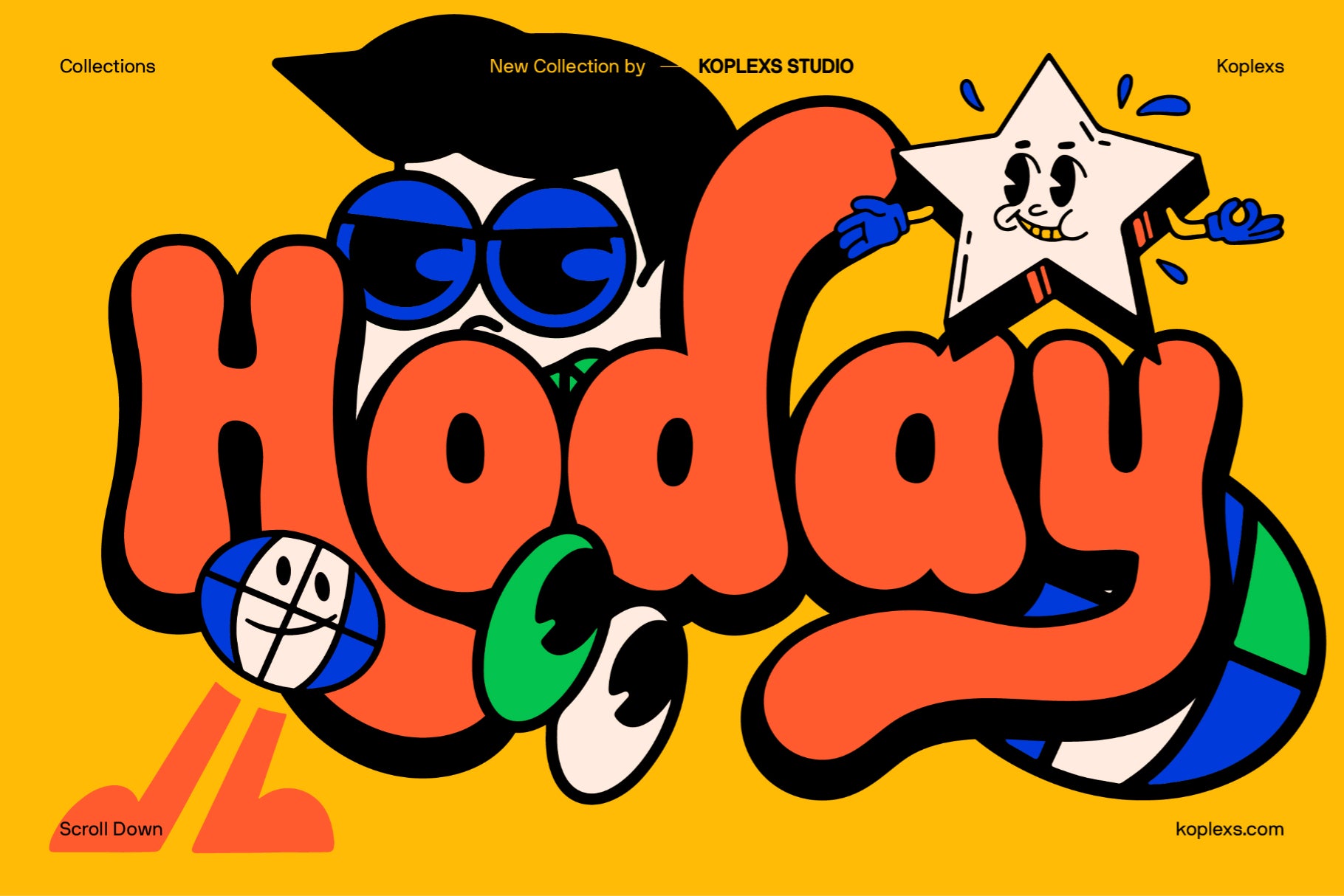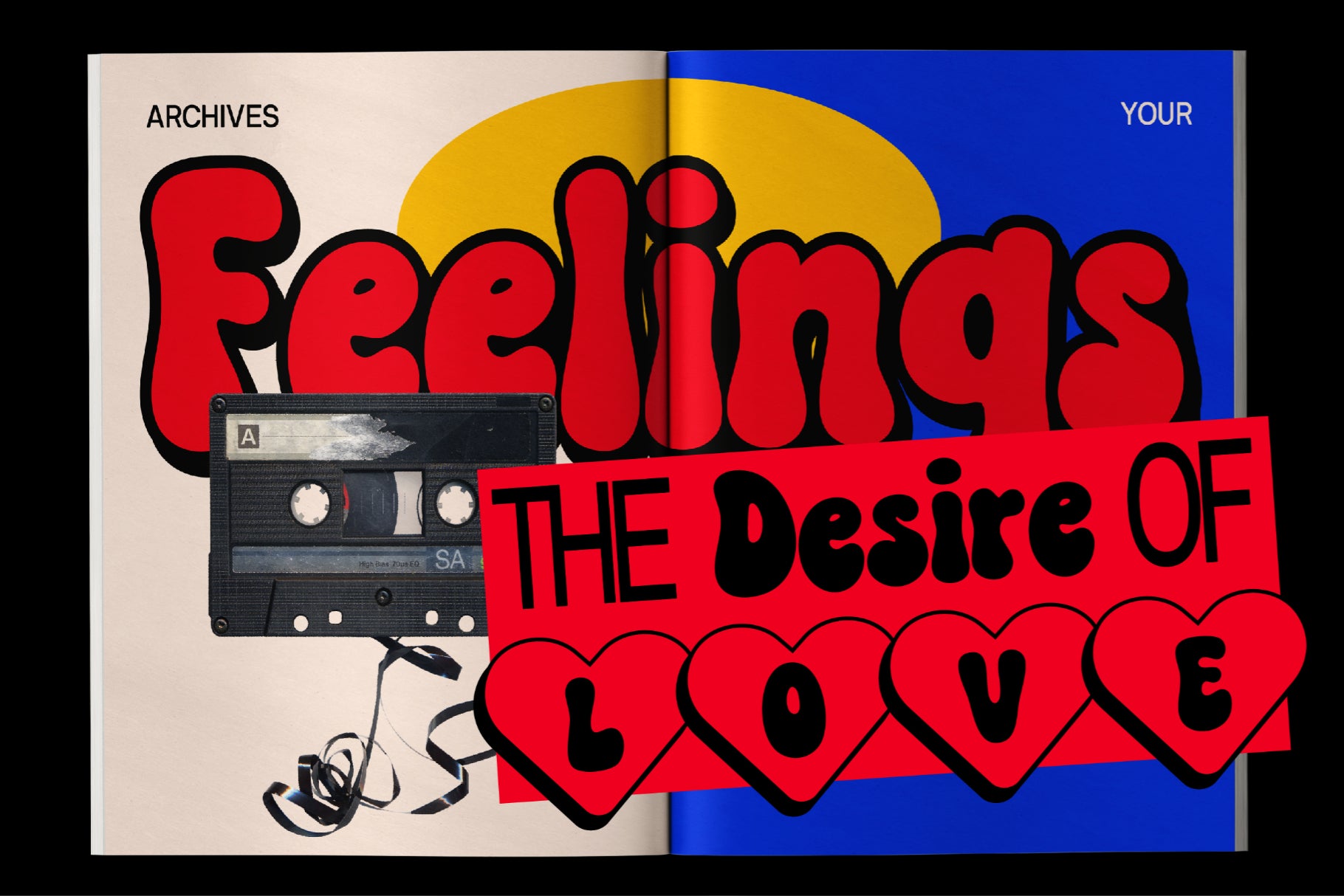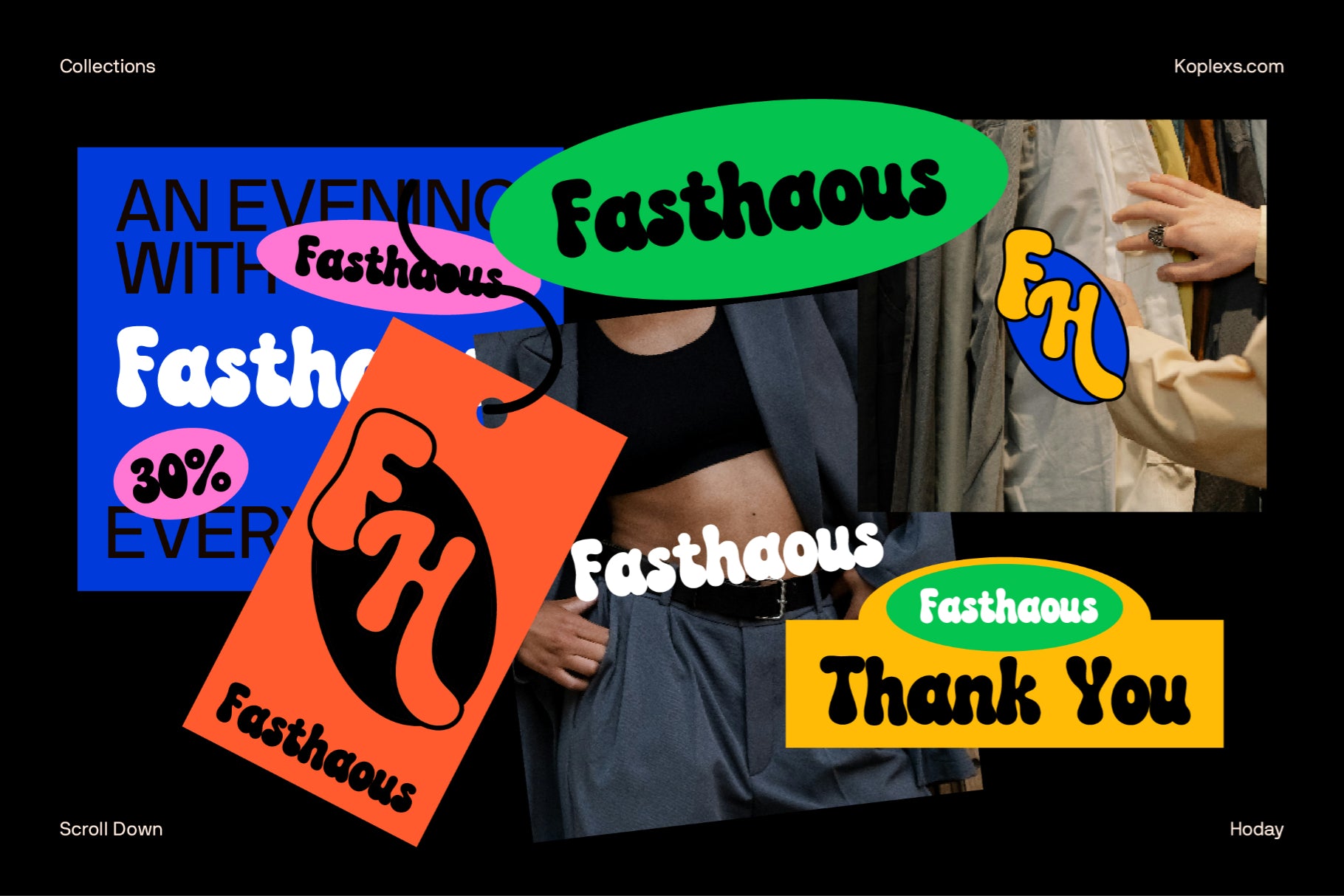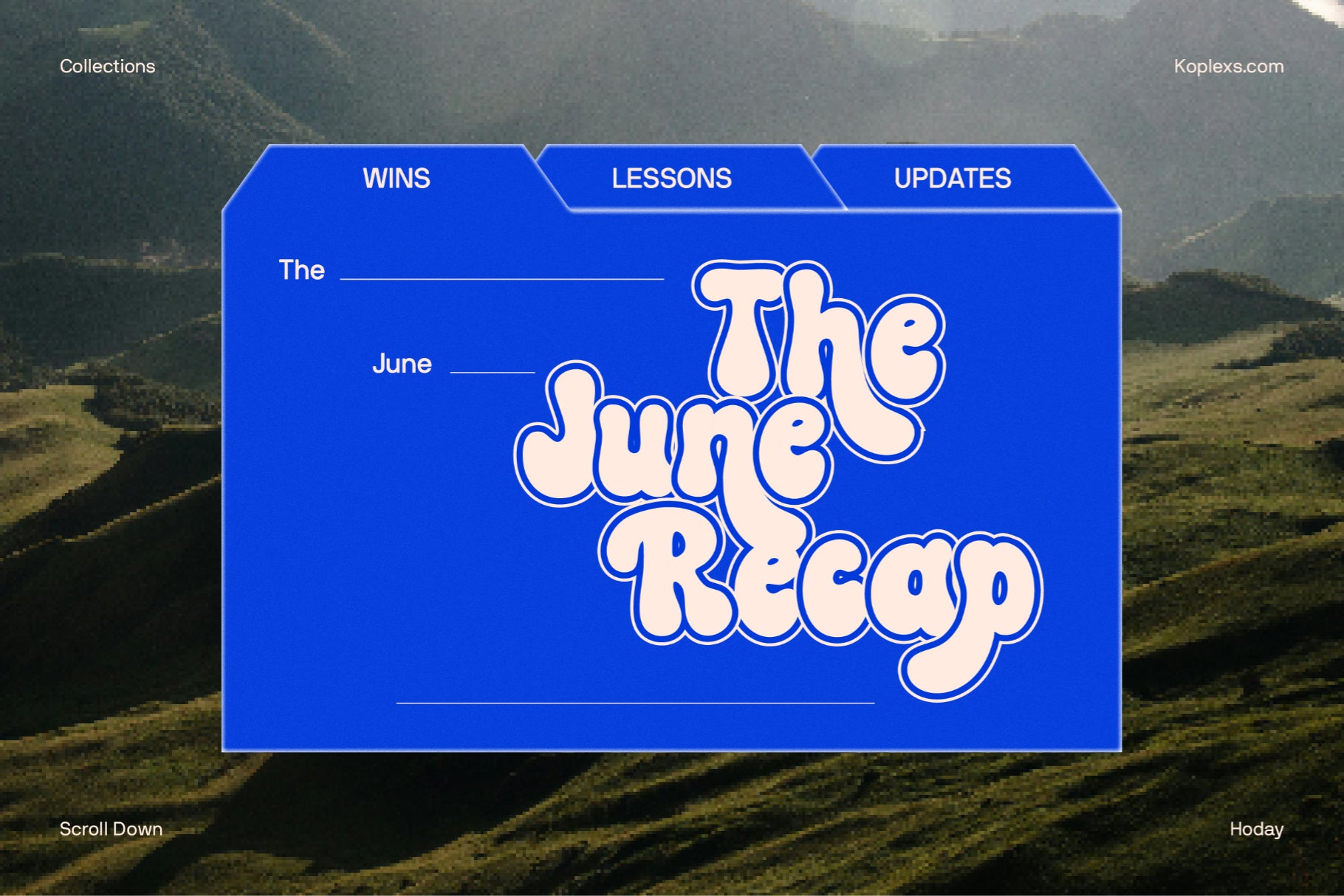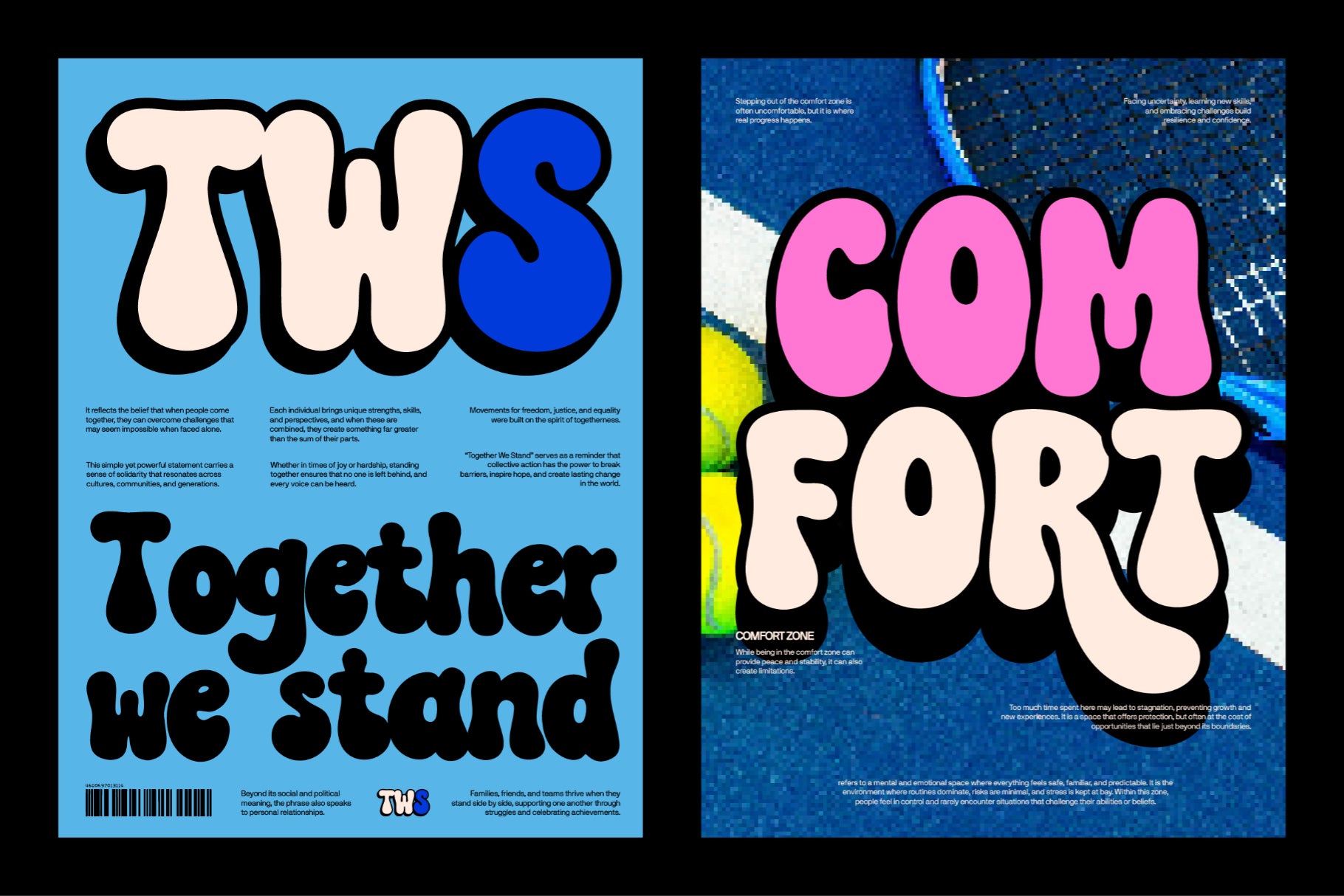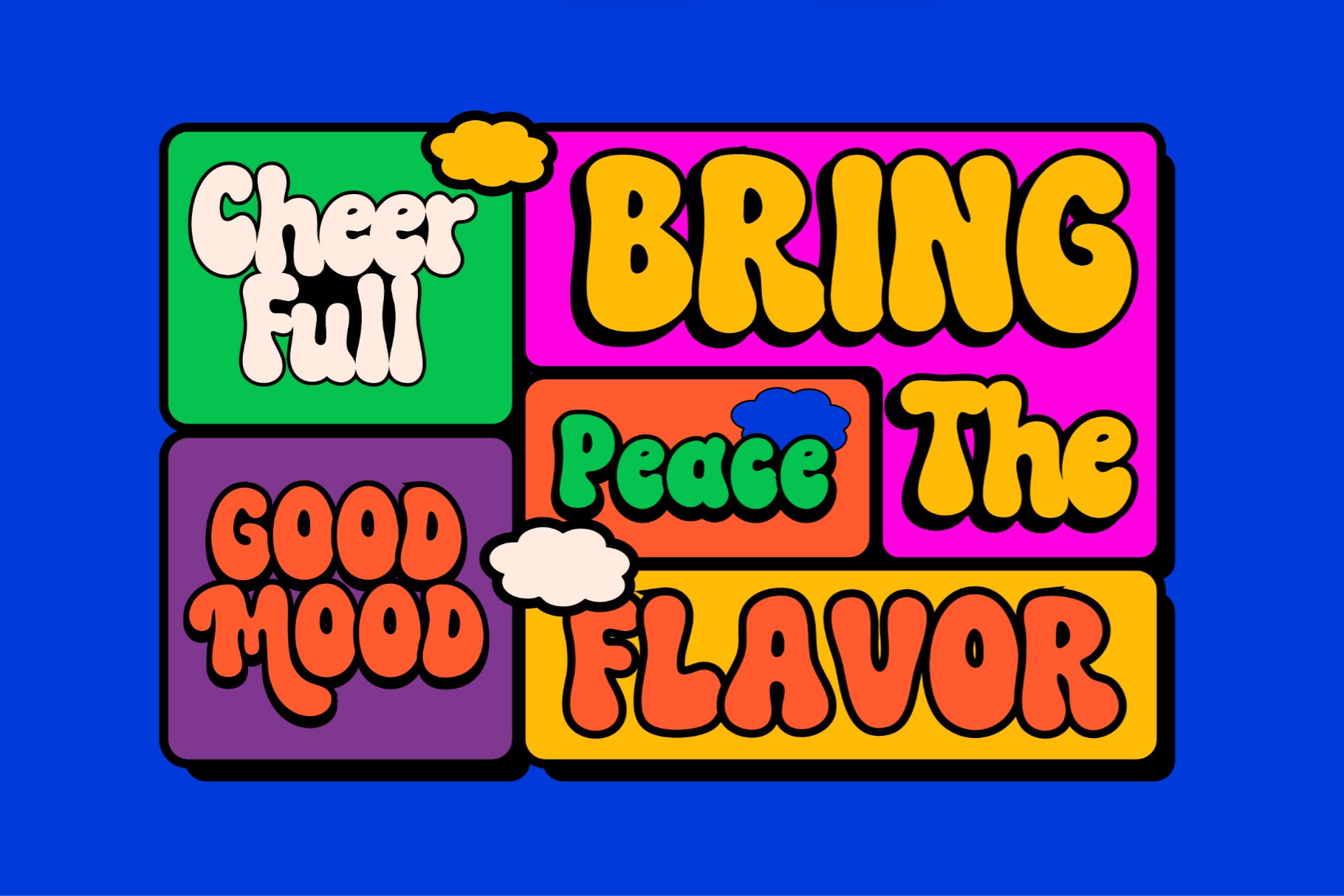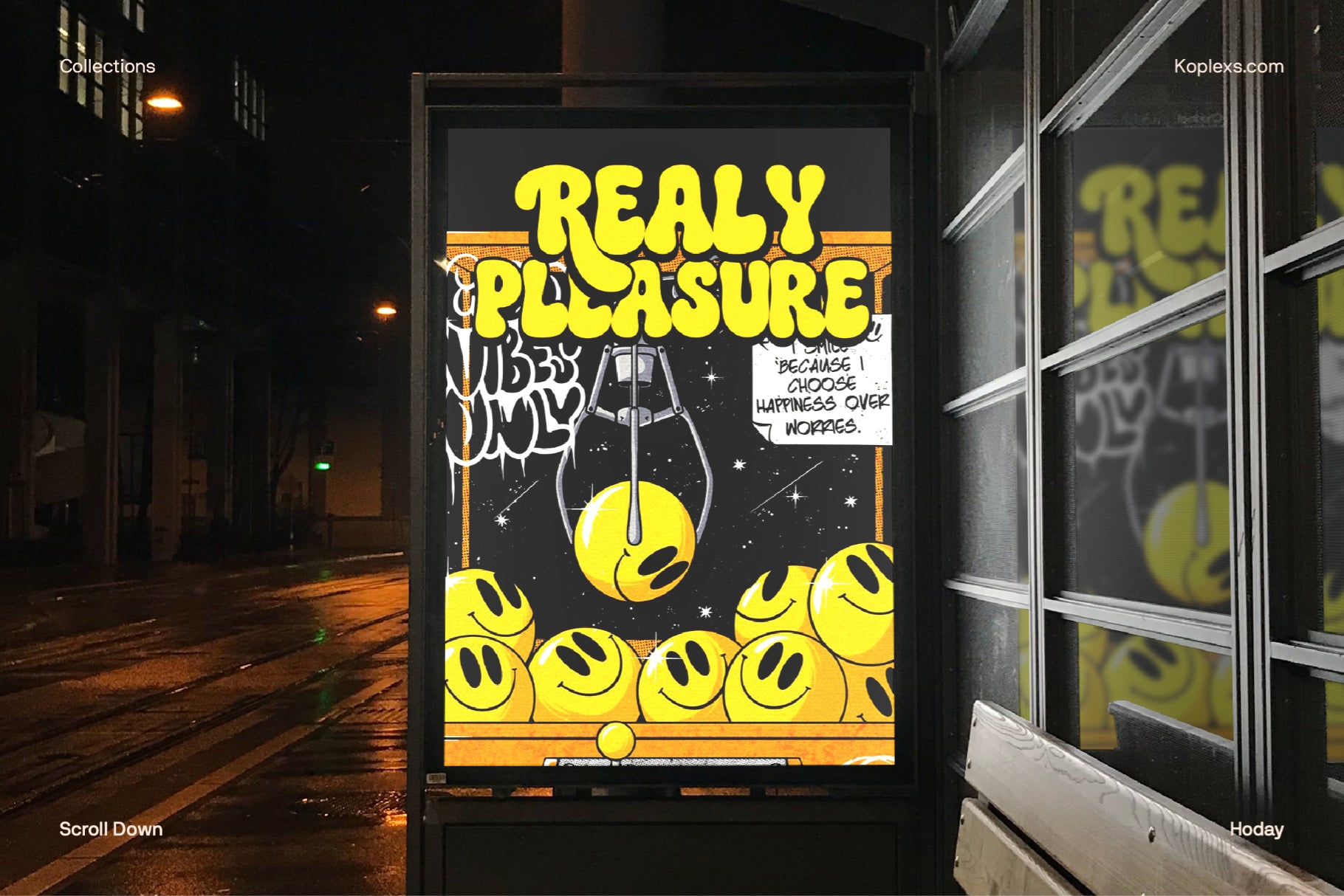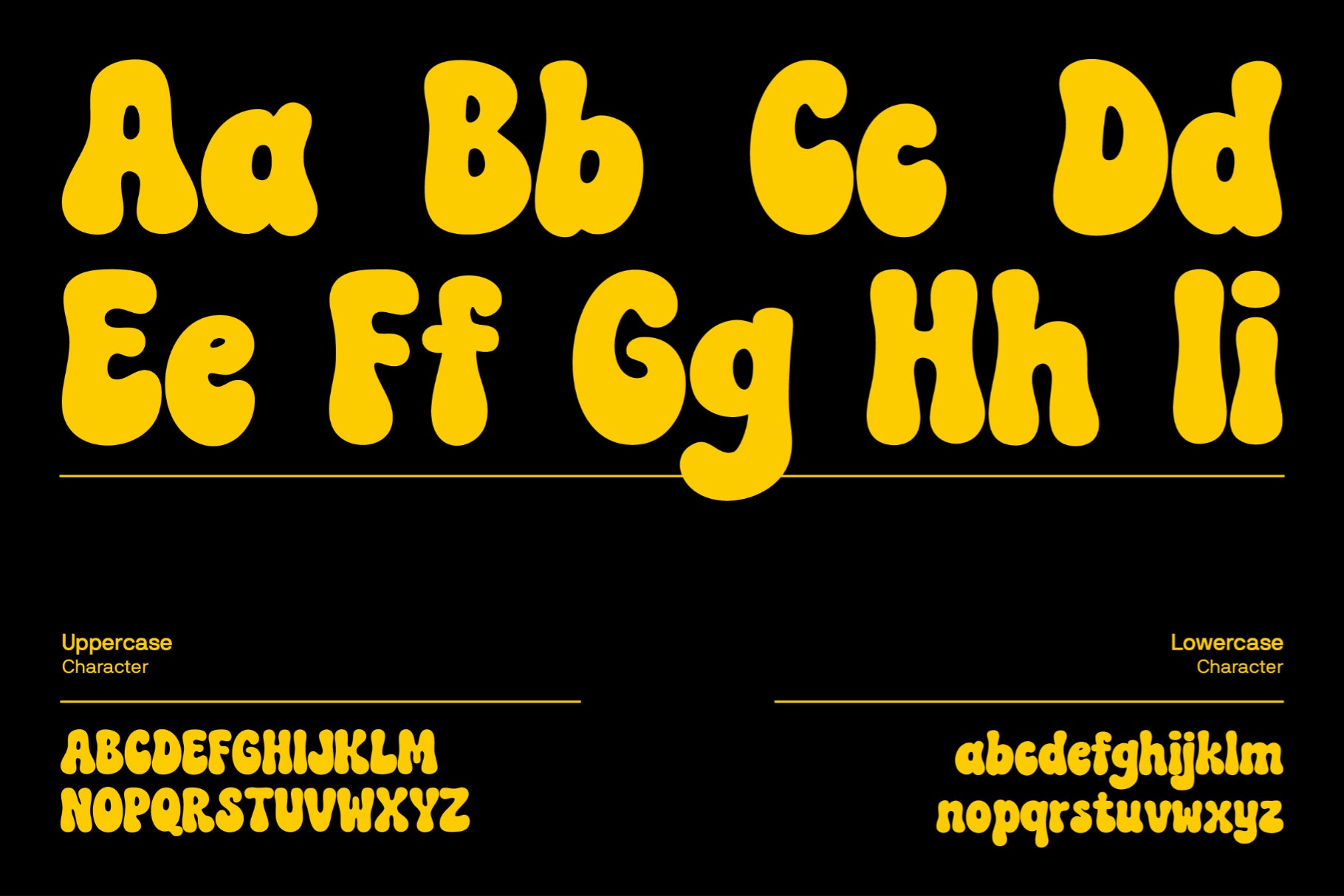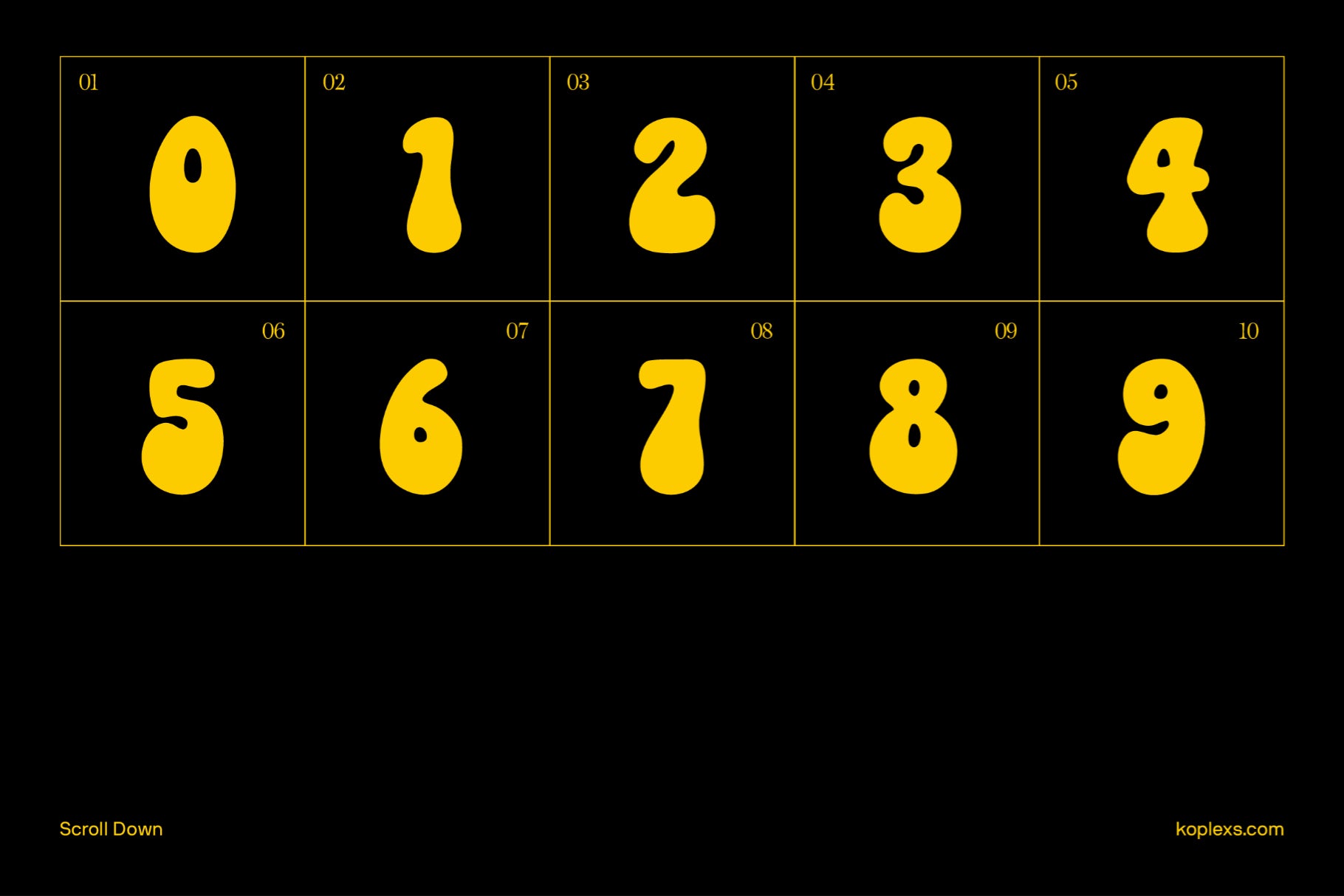
Hoday – Retro Bubble Display Font
Hoday – Bubble Letters Font
Hoday is a fun and energetic display font that captures the spirit of retro pop culture with bold bubble-shaped letterforms and playful typography. Designed to make a strong visual statement, this font features chunky curves, rounded edges, and a cheerful personality that instantly grabs attention.
Perfect for designers seeking a font with character and impact, Hoday combines nostalgic retro influences with modern creative trends. Its bold appearance makes it ideal for large headlines, branding projects, packaging, posters, merchandise, social media graphics, and promotional materials.
Whether you're creating a vibrant fashion campaign, a standout logo, a colorful product package, or eye-catching marketing content, Hoday helps bring your ideas to life with confidence and style.
Hoday is a retro bubble display font featuring bold, chunky letterforms with rounded edges, designed for impactful visual communication. This playful font is suitable for a variety of design projects, offering a unique blend of nostalgic and modern typography styles.